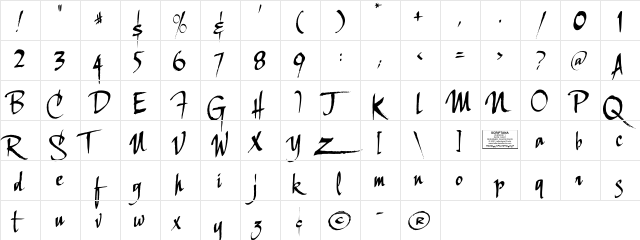
Halloween_ScriptanaCOND Regular
Design Context for Halloween_ScriptanaCOND Typeface
Halloween_ScriptanaCOND flows with the natural rhythm of handwritten lettering, making it ideal for designs that call for warmth and personal expression.
Font Pairing: Combine Halloween_ScriptanaCOND with a simple geometric sans for maximum contrast — the tension between flowing curves and clean structure is a classic typographic pairing.
Pro Tip: Use Halloween_ScriptanaCOND for short runs of text — names, titles, or taglines. Extended body copy in script faces tires the eye quickly.